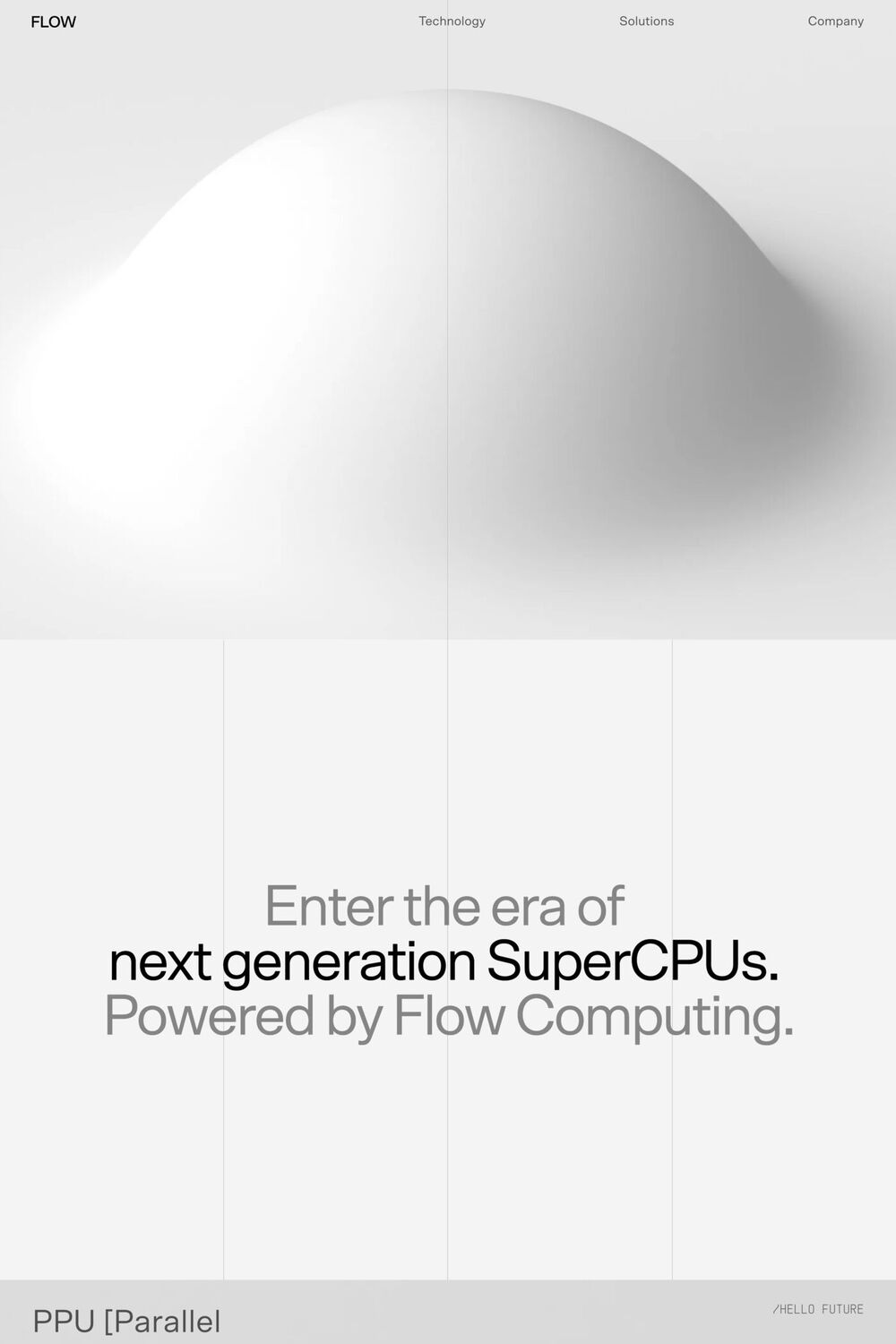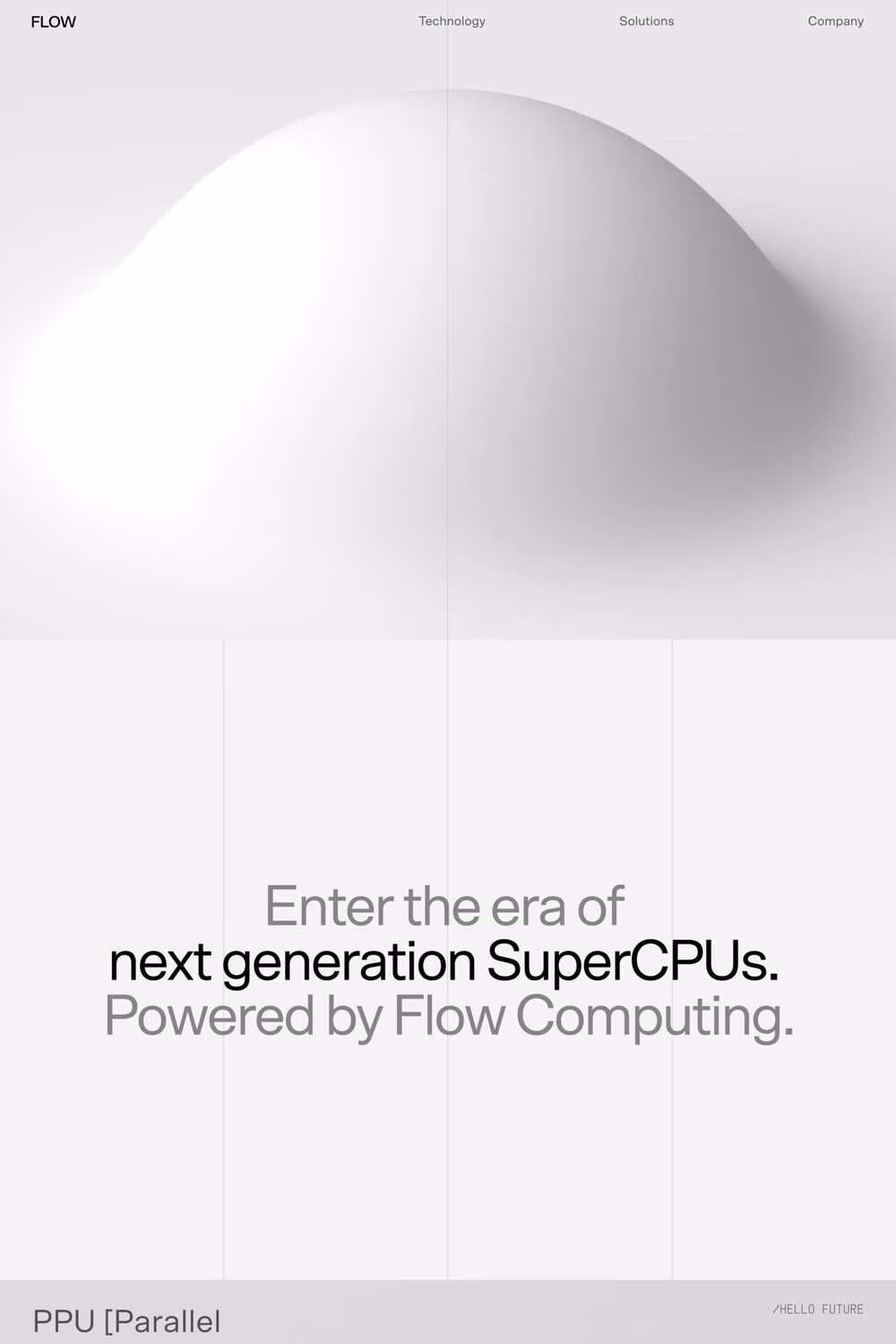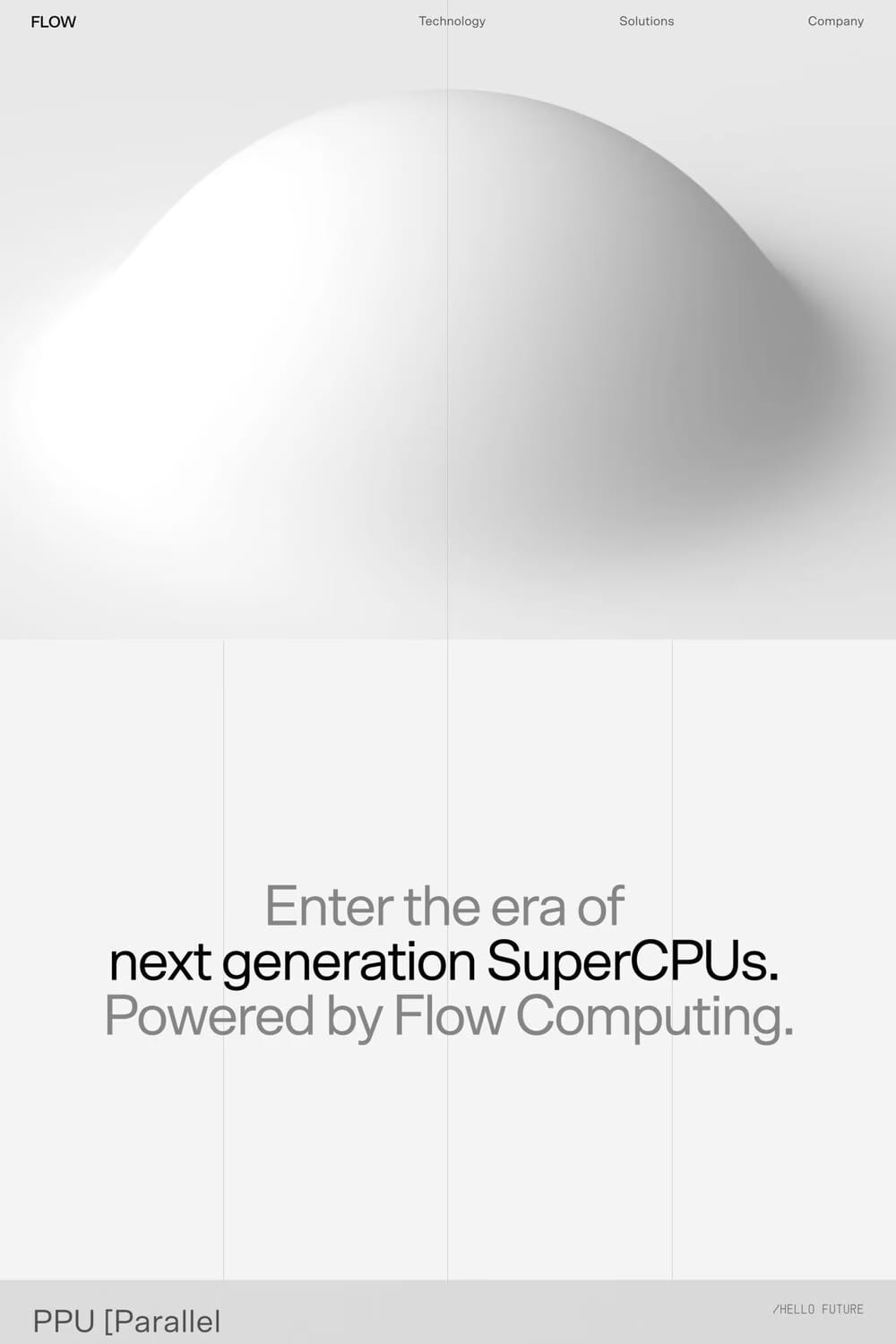
A geometric sans serif typeface inspired by the popular hot metal fonts; Memphis, Karnak, Stymie, and Futura. Regular is firmly rooted within the modernist tradition, albeit with a contemporary take. Regular XL has a large x-height and works especially well in small point sizes and on screen. A Soft version is also available in case you are looking for a more friendly feel. Or alternatively, check out the recently added Regular MONO for a more distinctly default look.